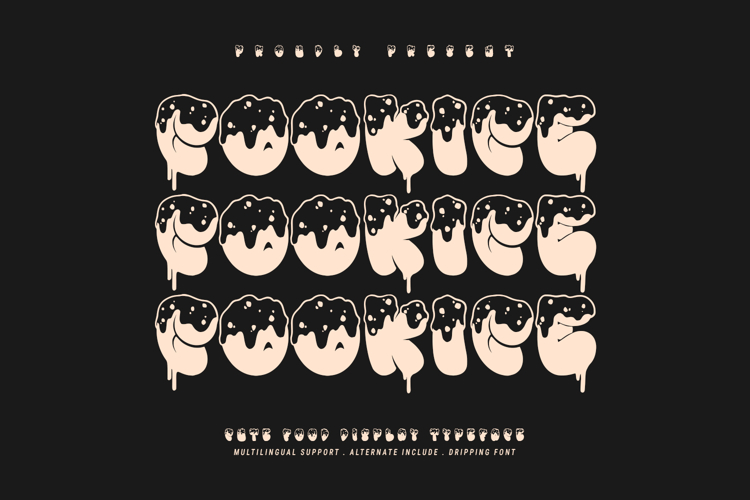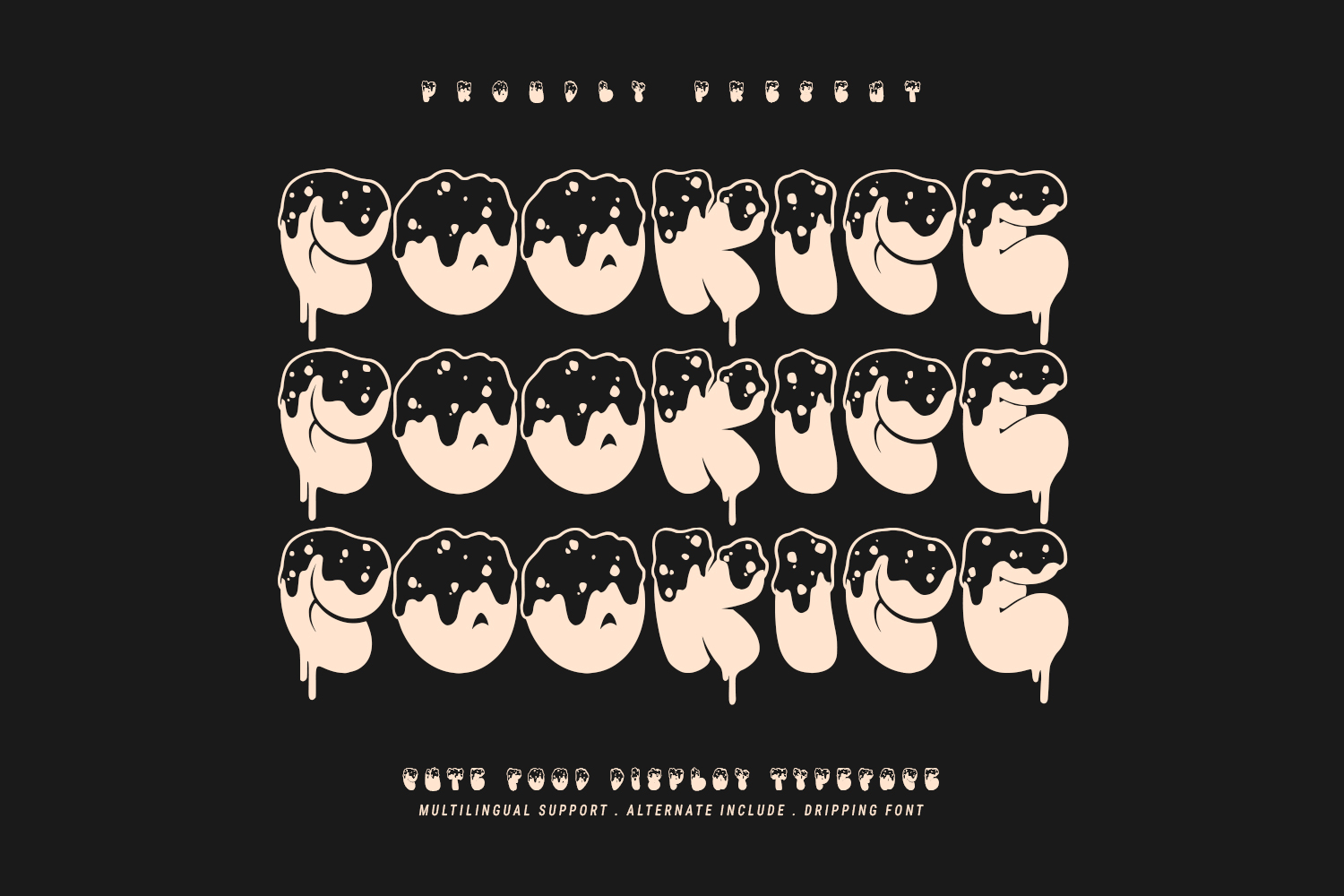
Cookice Cute Food Dripping Deliciously Font
Unleash your inner baker and sweeten up your designs with Cookice, the deliciously cute and quirky display font that looks good enough to eat. Inspired by the irresistible charm of freshly baked cookies, melted frosting, and sweet treats, Cookice brings a playful, bubbly, and slightly messy vibe to any project.
Each letter is crafted to look like a plump, round cookie or cake, dripping with a delectable layer of frosting or chocolate. The alternating texture with sprinkles, drips, and a rounded, soft silhouette makes this font a standout choice for anyone looking to convey fun, indulgence, and sugary goodness.